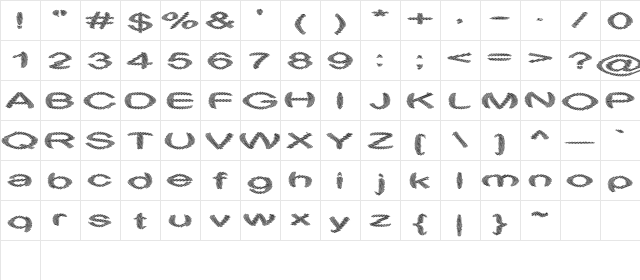
Obtuse two Regular Free Font
Obtuse two Regular
Design Context for Obtuse two
Obtuse two is a composed and adaptable typeface that performs quietly and consistently across a wide range of design contexts.
Pro Tip: Use Obtuse two in both headline and body roles to test its range before committing to a single application.